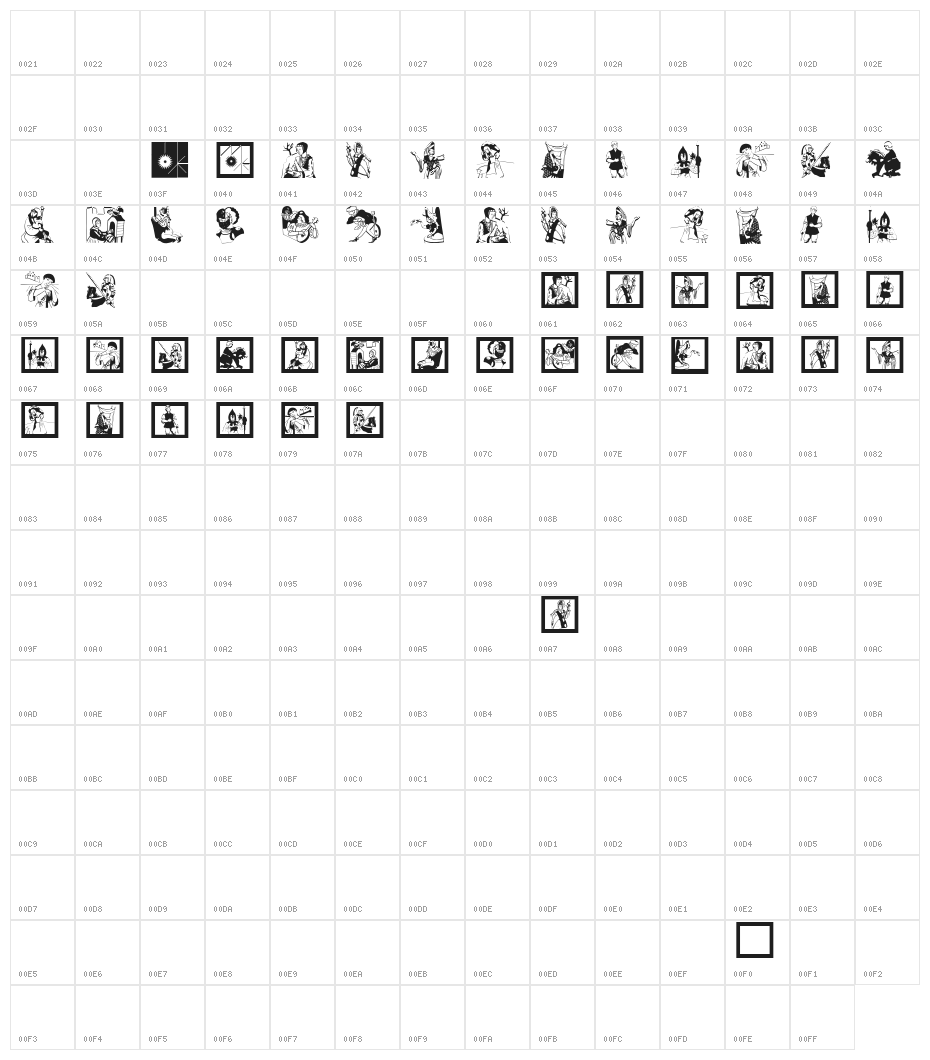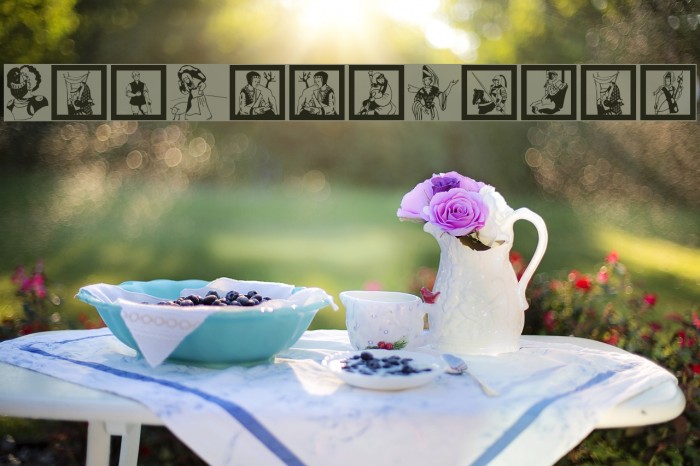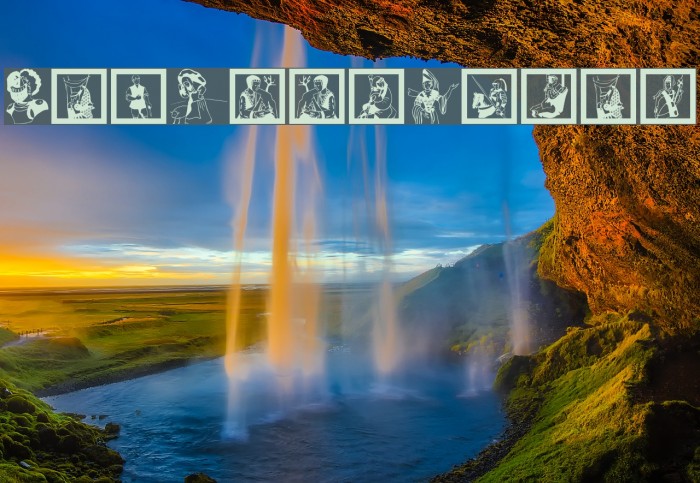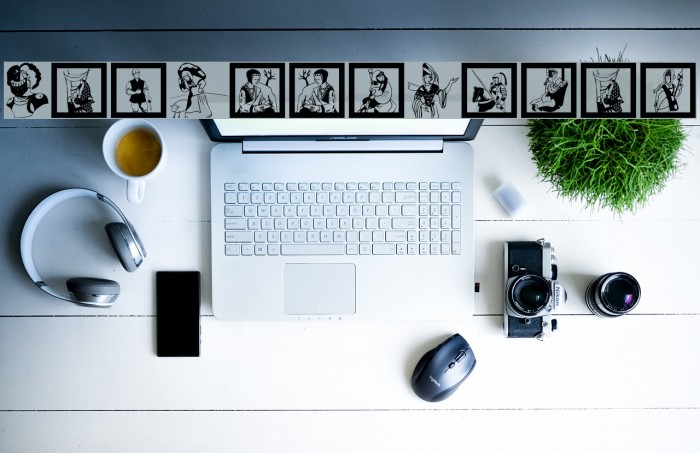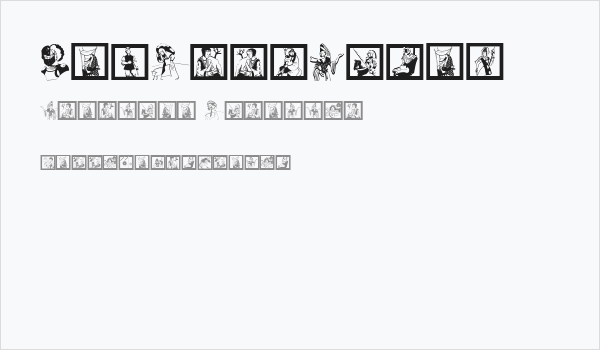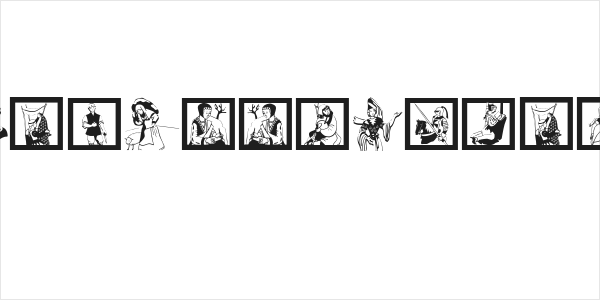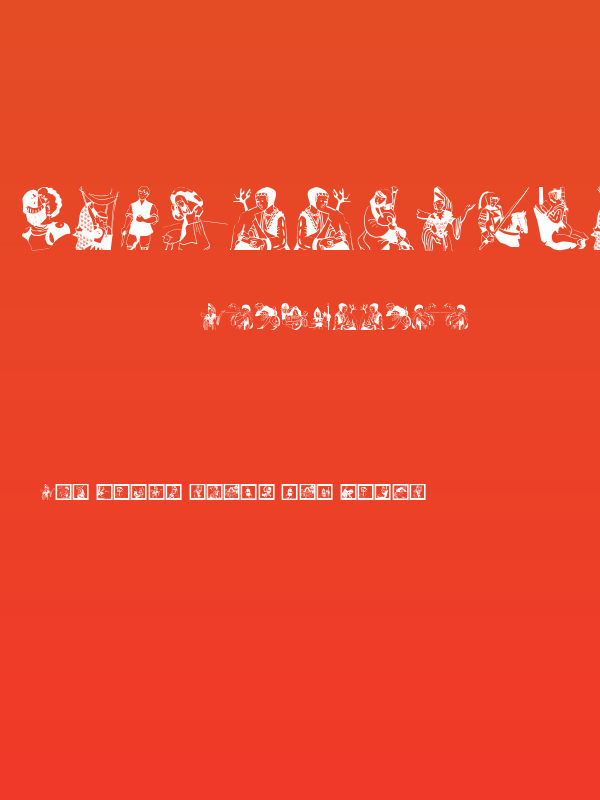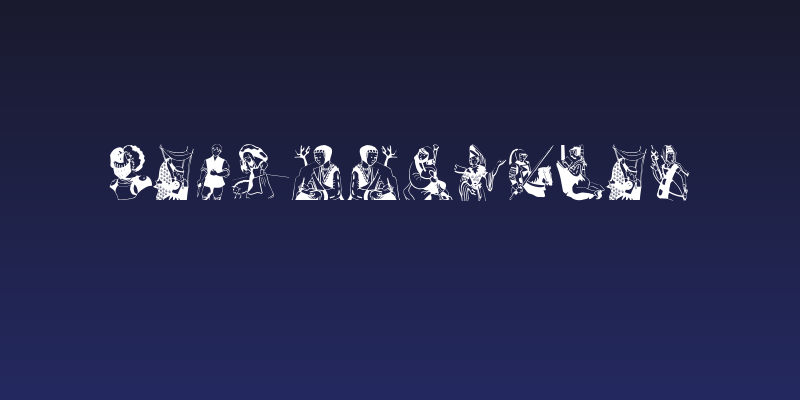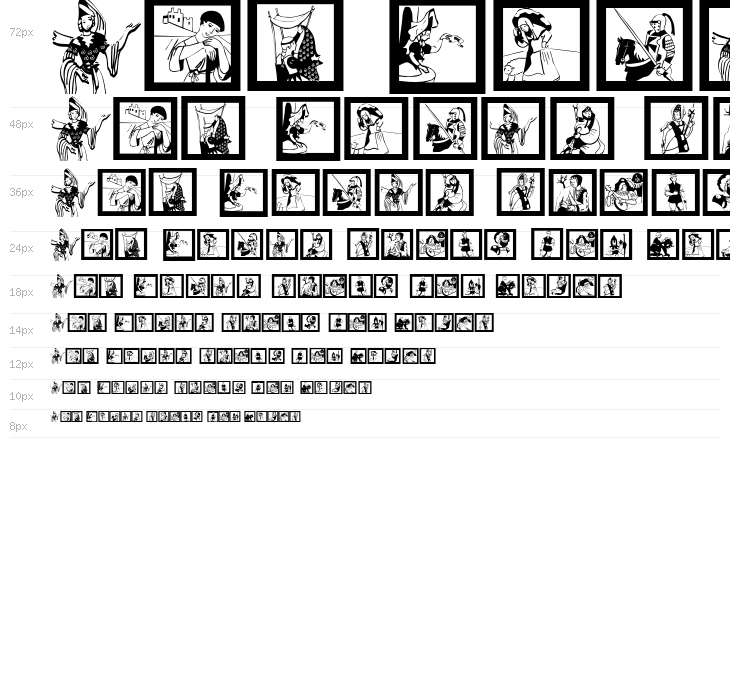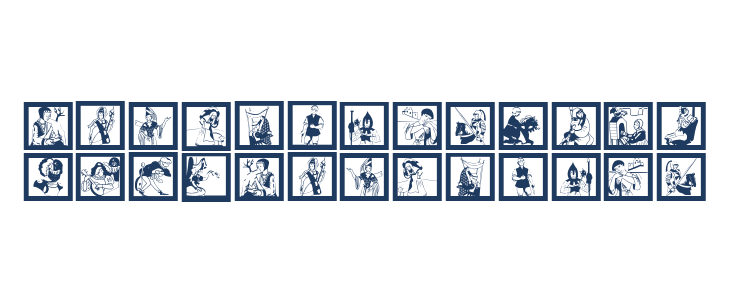
NewDarkTimes Font
A decorative display font featuring detailed medieval-style illustrations in place of traditional alphanumeric characters, each glyph depicting a unique scene or character reminiscent of historical manuscripts or woodcuts.
| Overall Style | Decorative, Vintage, Medieval |
| Use Case | Logos, Headlines, Posters, Themed graphics |
| Proposed Projects | Book covers, event posters, themed invitations, educational materials, historical or fantasy branding. |